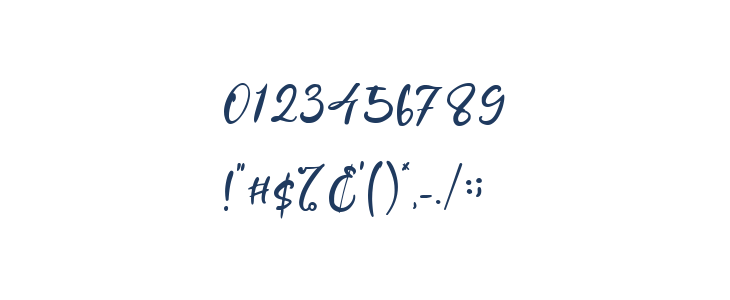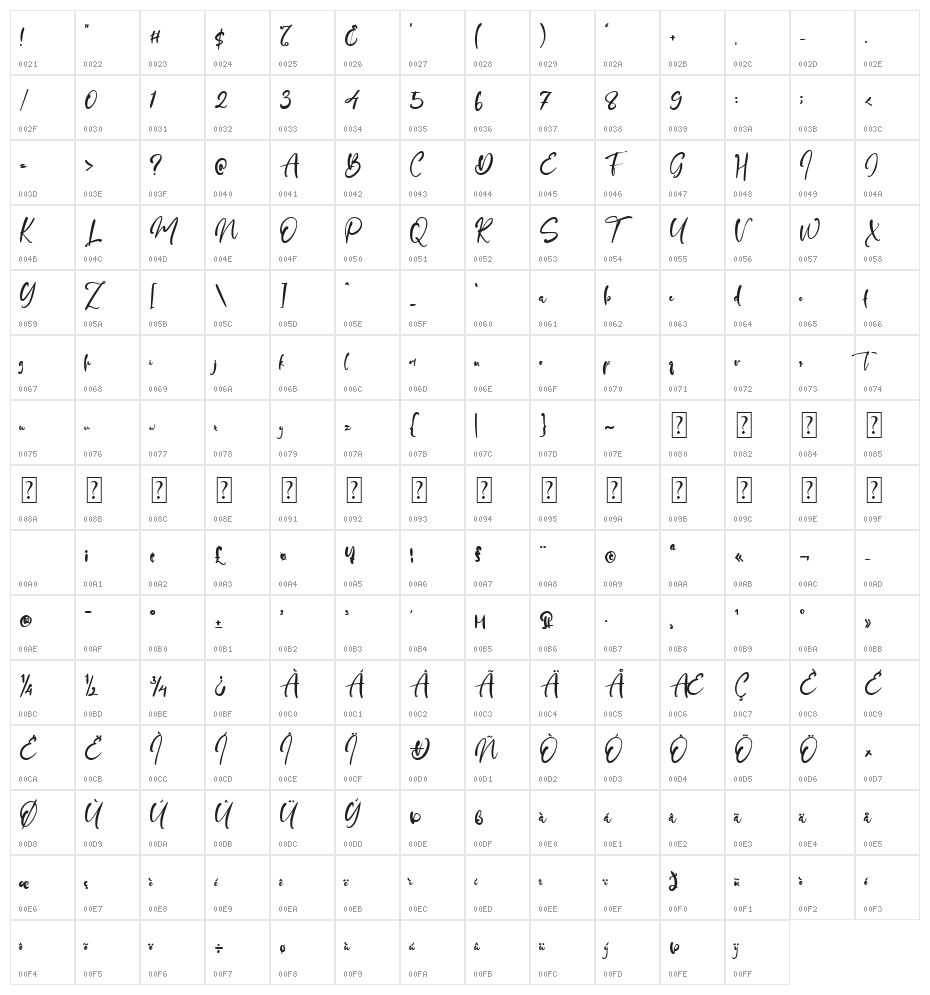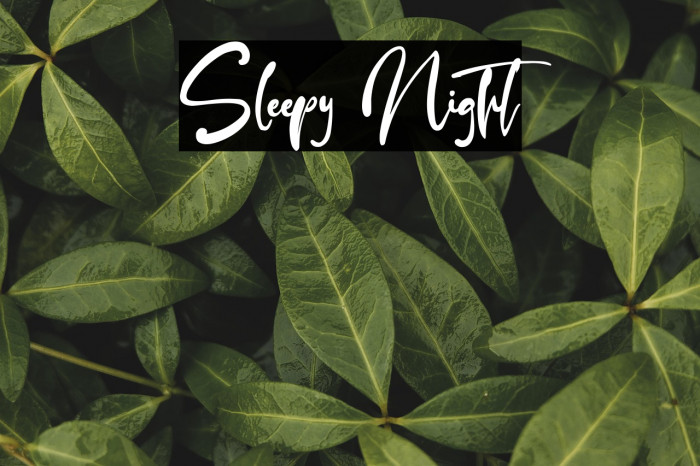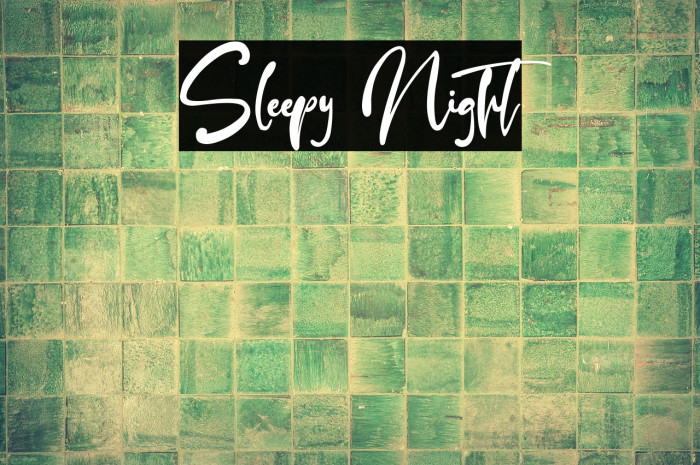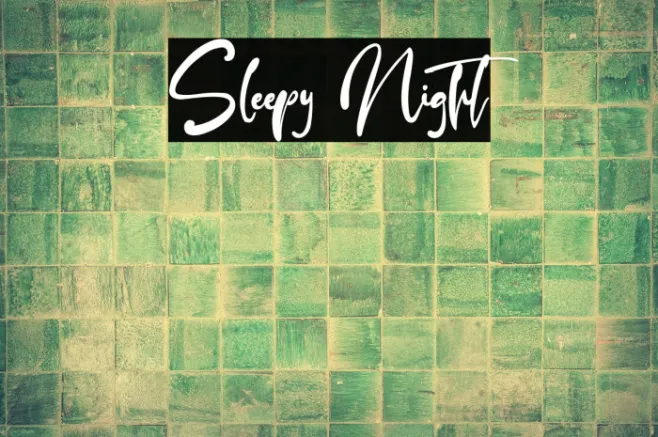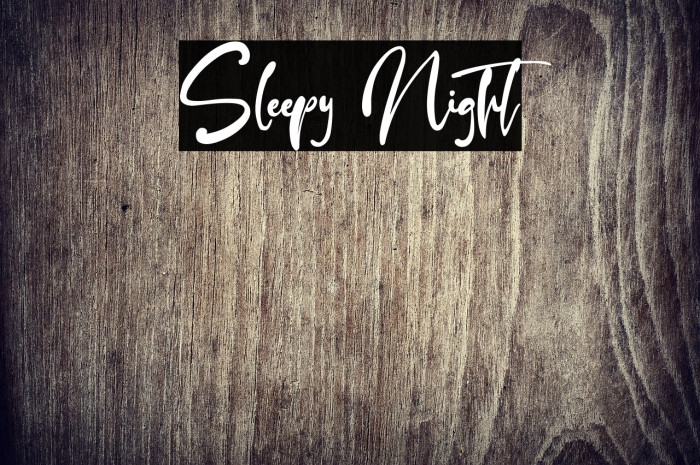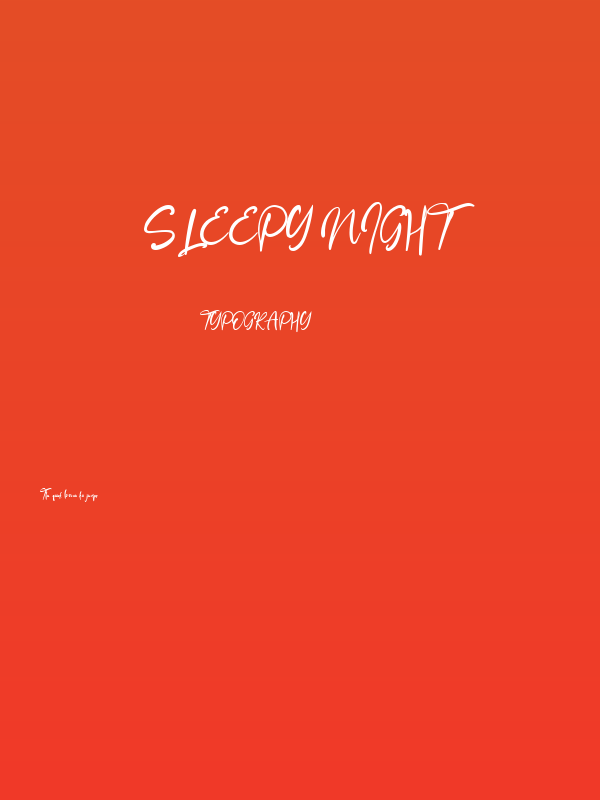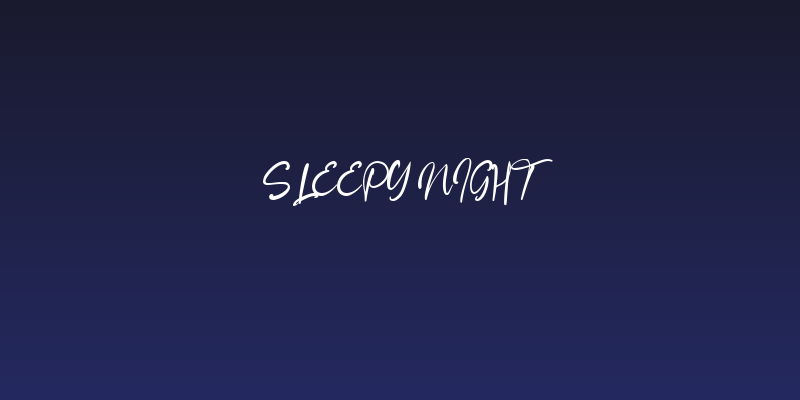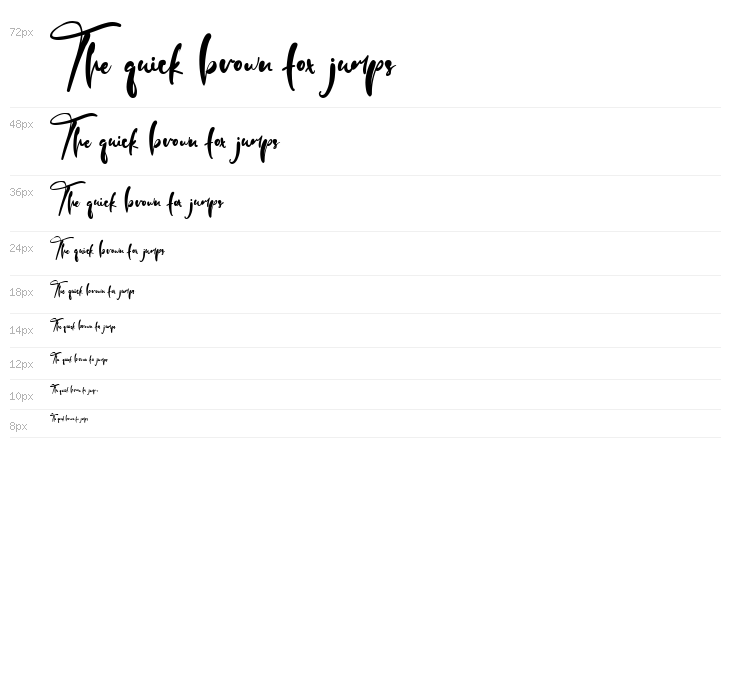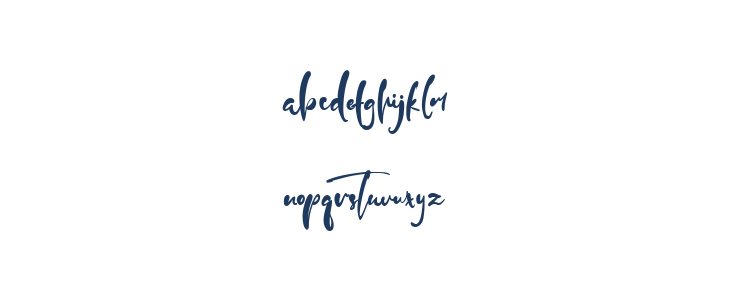
Sleepy Night Font
Sleepy Night Description
This font exudes a lively and dynamic energy with its flowing, cursive style. The letters are characterized by their elegant, sweeping curves and varying stroke widths, giving it a hand-drawn appearance. The uppercase letters are bold and prominent, while the lowercase letters maintain a consistent fluidity, adding to the overall charm. The numbers and special characters complement the alphabet with similar stylistic features, ensuring a cohesive look. This font is perfect for projects that require a personal touch, such as invitations, greeting cards, or branding materials. Its artistic flair makes it stand out, capturing attention with its unique and expressive design.
| Proposed Projects | Ideal for invitations, greeting cards, branding, and artistic projects. |